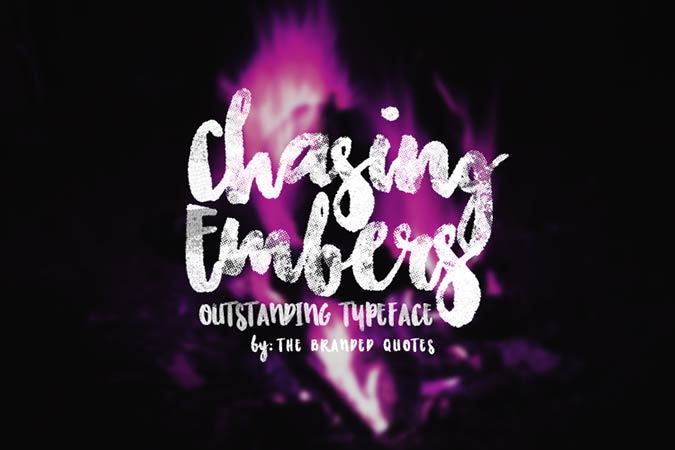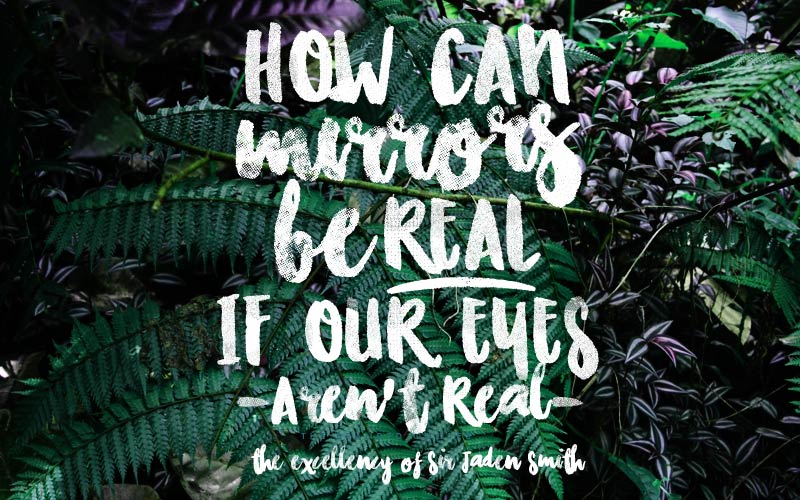
Chasing Embers is an expressive handlettering free font that was written with thick brush. The watercolor or ink effect is still visible clearly in the characters and it might be heavy to open on slower computers. It’s a great font to use for text on images, that can great bring out the essence of the picture.